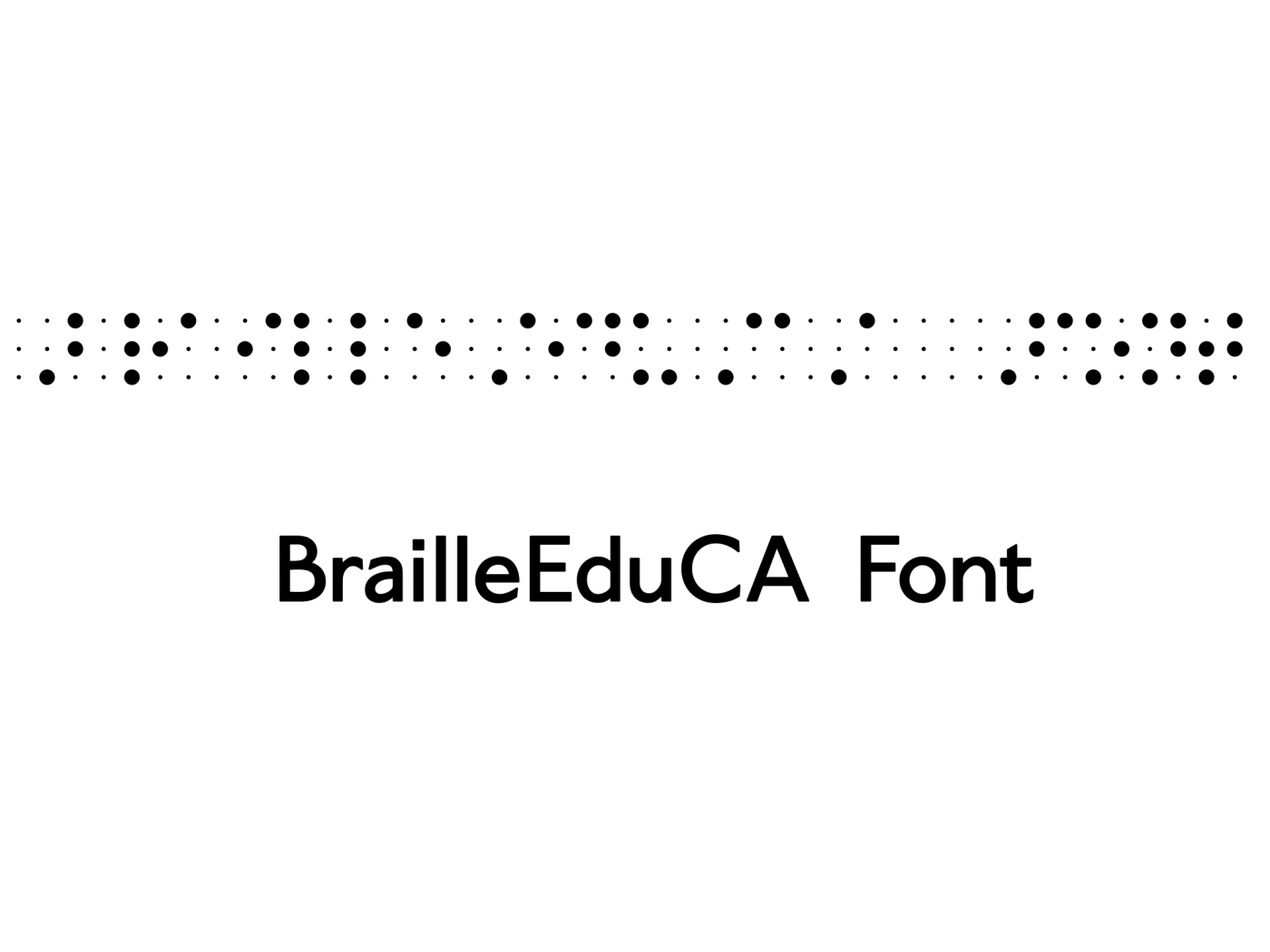
• BrailleEduCA is an educational font for blind people or for people who are learning Braille from California, BrailleEduCA focuses on helping blind people from California to the world itself.
Added FS (FontStruct) and @elmoyenique's "Eye" logo (literally spelt with individual braille characters) in braille in PUA with Night Writing (w/ granted permission via email/messages months ago credits to them!!!)
Added languages for multilingual typing